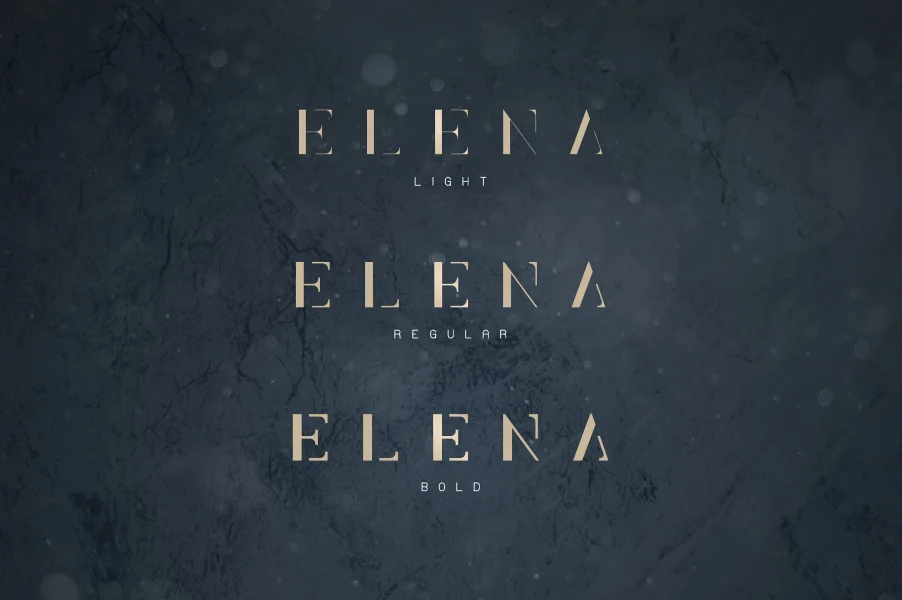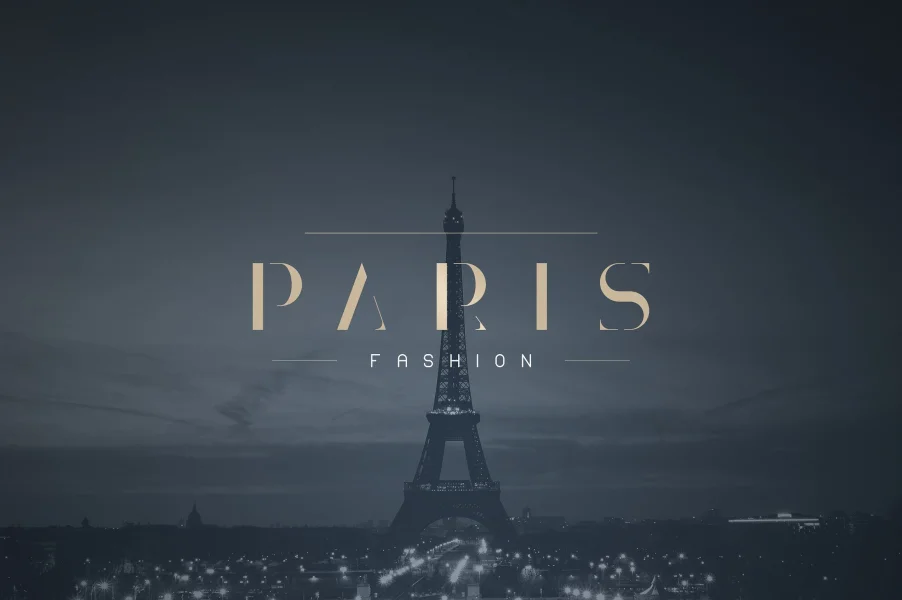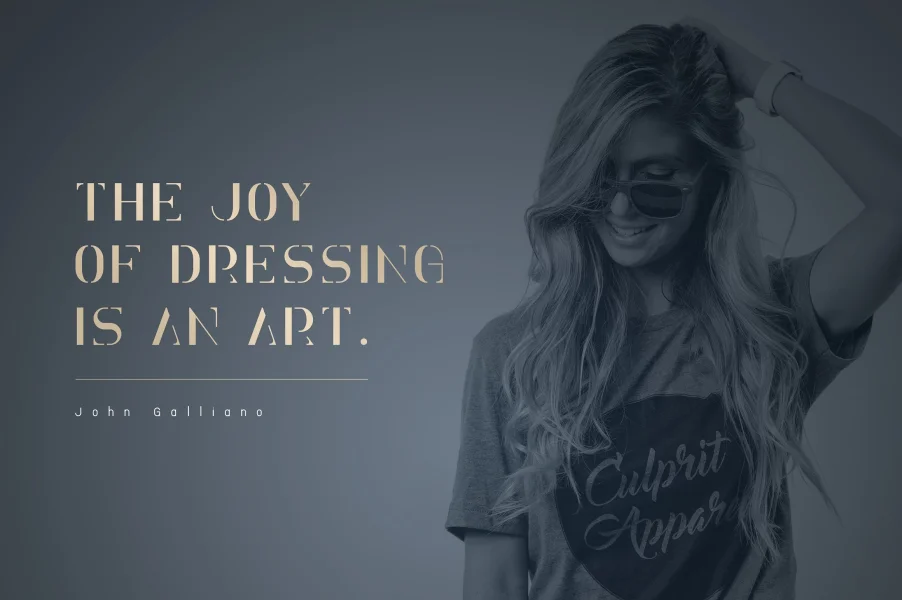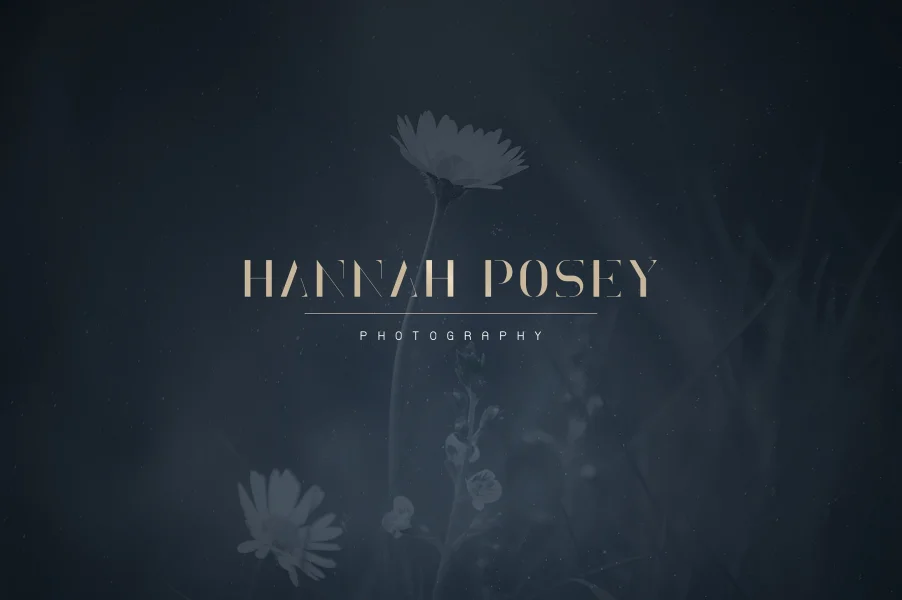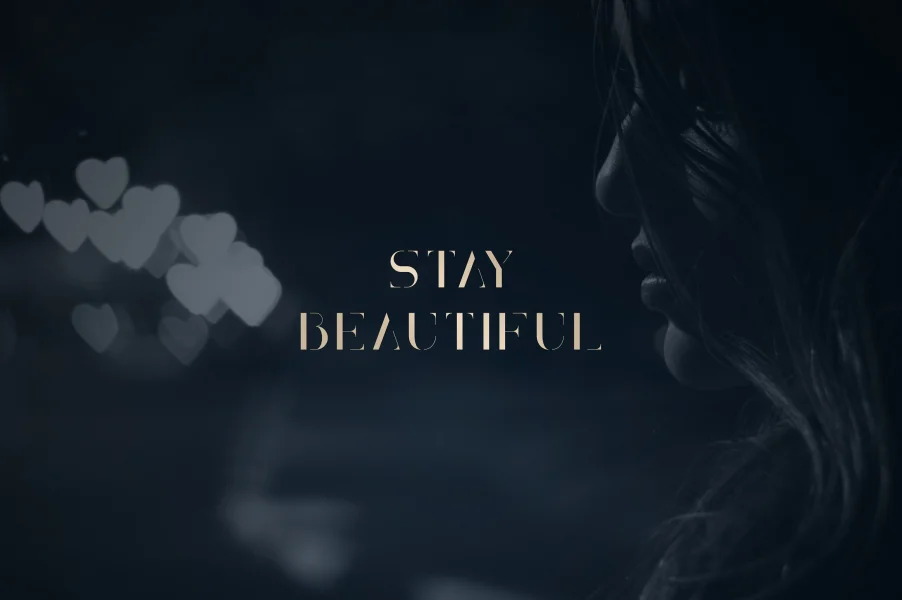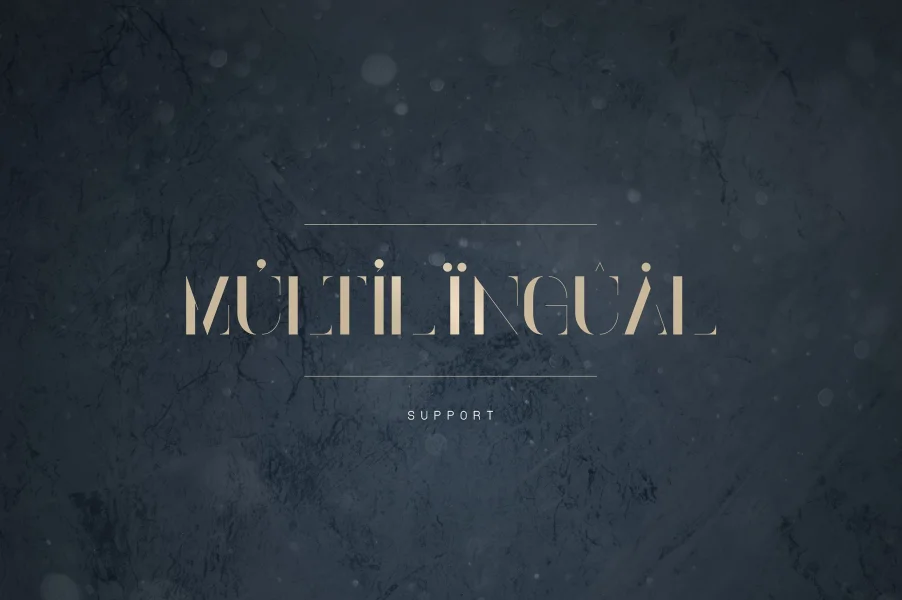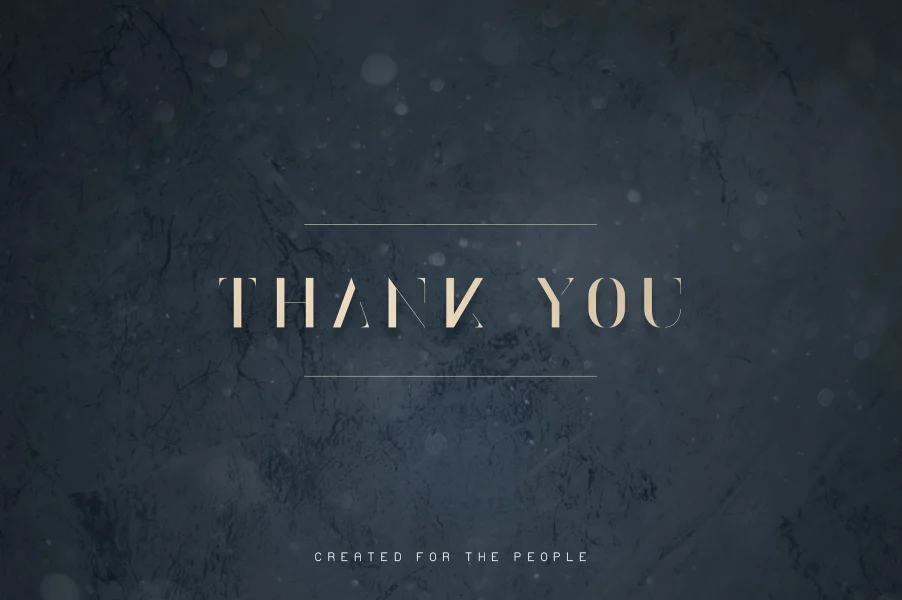
Elena is clean, elegant typeface with 3 fonts and multilingual support. It's a very versatile font that works great in large and small sizes.
Elena is perfect for branding projects, home-ware designs, product packaging, magazine headers - or simply as a stylish text overlay to any background image.